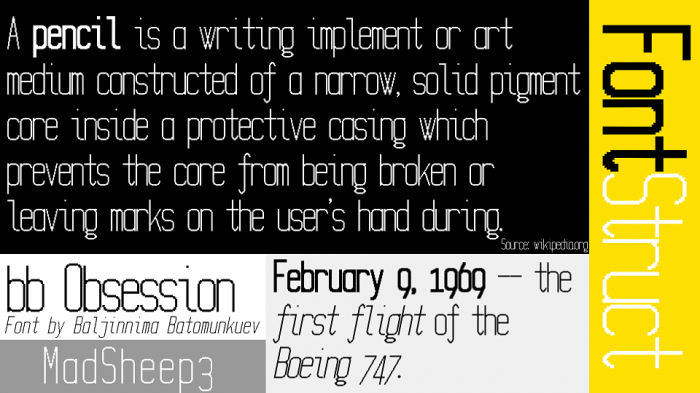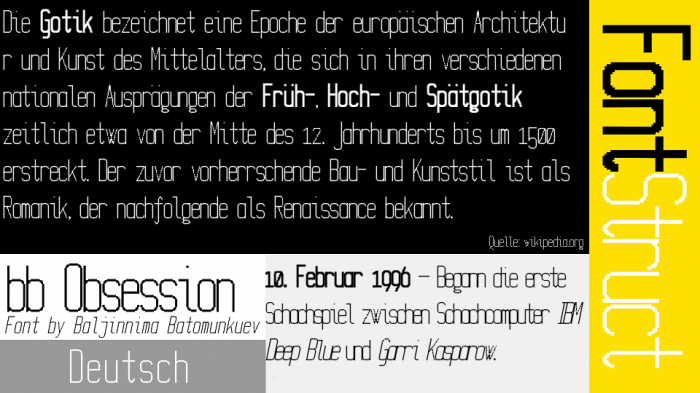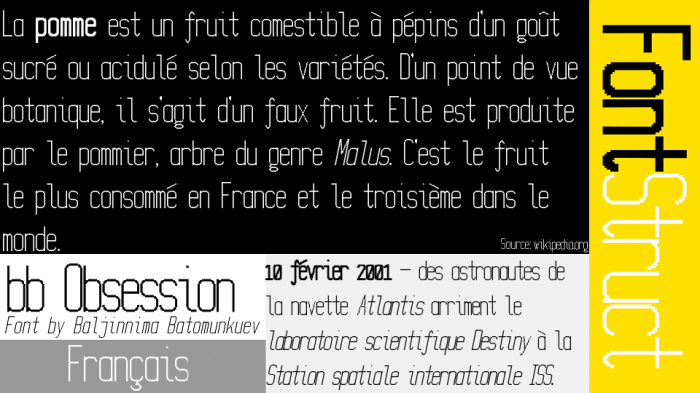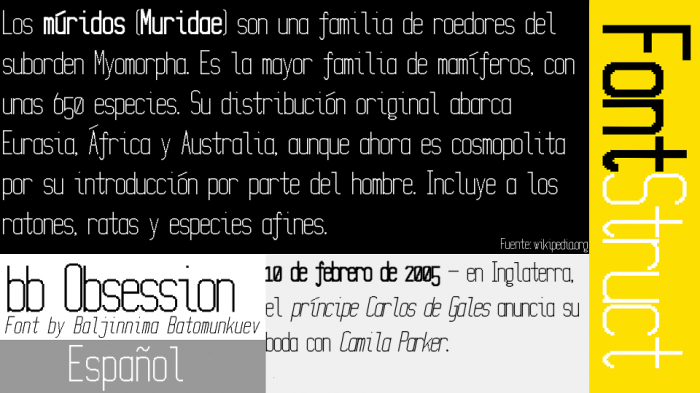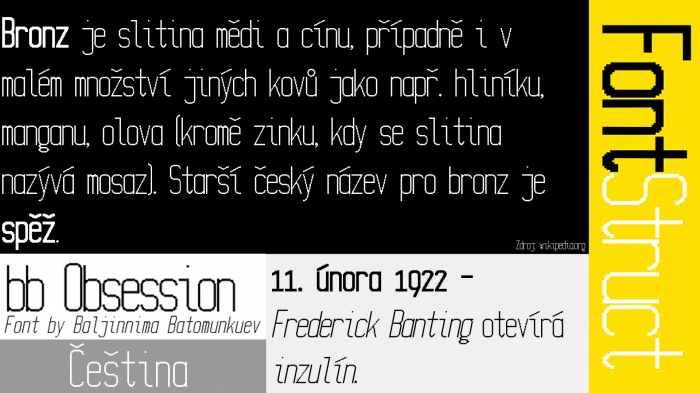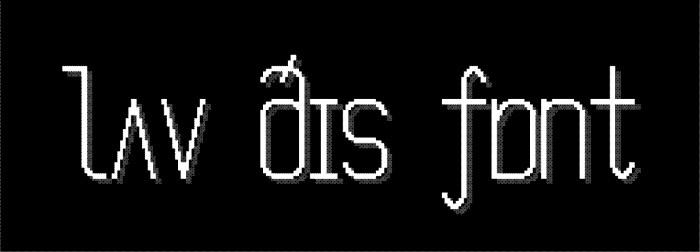
So nice! I love the look of the curves as they have the right proportion for the heights. I've cloned it and made the global width 2.5 as I find it easier to read with more white between letters. 10/10 It will go into my computer font file.
Added support for a Latin Extended-A!
Added support for a Basic Cyrillic (with Ґ, ґ)!
Added support for a Latin Extended-B!
Added support for a IPA Extensions!
Added support for a Spacing Modifier Letters!
Added support for a Combining Diacritical Marks!
Added support for a Greek and Coptic!
This is growing, and growing ... beautiful shapes and a perfect size make it a pleasure to read.
Added all other characters in Cyrillic!
Added support for a Cyrillic Supplement!
Added support for a Armenian!
If you can still login, The diagonal of the N is too thin compared to the rest (K, M, R, V, W, X, Y, Z, etc.)
Why is the lowercase version of и and й written as u/ŭ (like cursive) but uppercase И/й is written as printed instead of U/Ŭ?